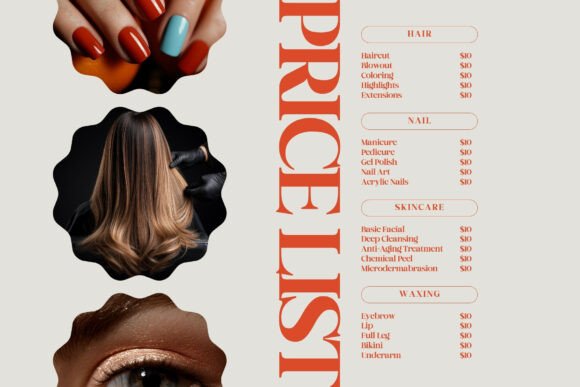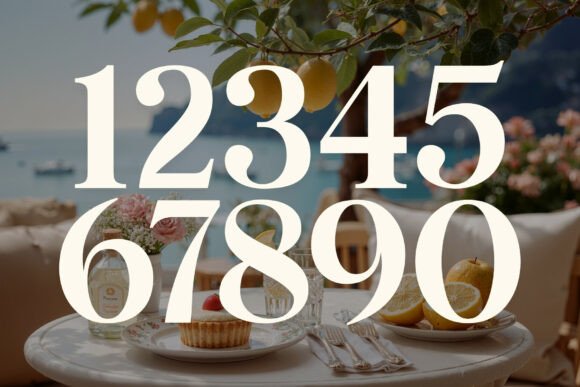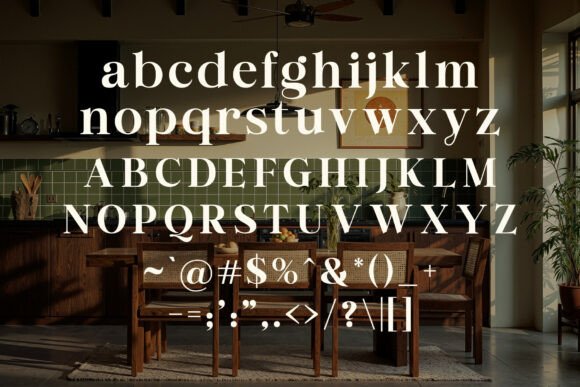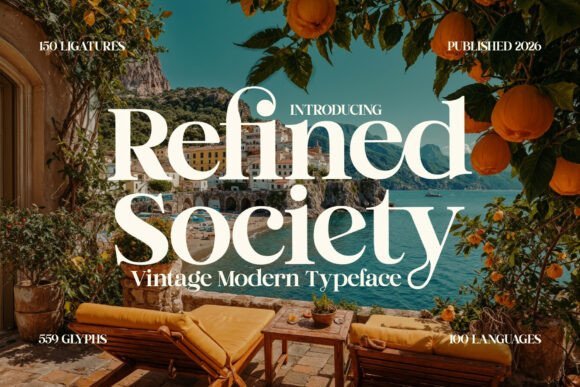
Introduction to Refined Society Font
Refined Society is a breathtaking vintage typeface that perfectly captures the essence of Mediterranean luxury.
Its timeless, high-contrast serifs make it an essential tool for high-end editorial and lifestyle branding Refined Society is perfect for luxury travel branding, high-end editorial design, premium logos, and wedding stationery.
Key Features of Refined Society Font
Why Choose Refined Society Font?